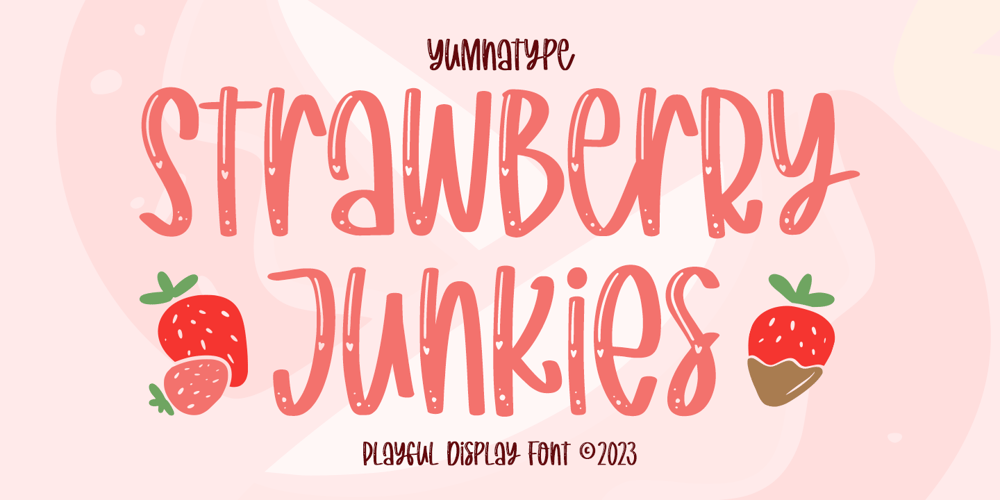
Strawberry Junkies Font Family was designed by Donis Miftahudin and published by Yumna Type. Strawberry Junkies contains 2 styles and family package options. Choosing the right display font can make your designs look more attractive and stunning, so that your designs gain more popularity. This is the Strawberry Junkies for you. It is a rather circled display font of which prone circled letters express soft, fun nuances in order that the company becomes more easily recognized by customers and audience. This font’s main characters are the consistent geometry, proportion, and line thickness on every letter to make it legible for big text sizes. In addition, Strawberry Junkies provides an extra clipart as a special bonus. Furthermore, you can enjoy the available features here.Features: Multilingual Supports PUA Encoded Numerals and Punctuations Strawberry Junkies fits best for various design projects, such as brandings, posters, banners, headings, magazine covers, quotes, printed products, merchandise, social media, etc. Find out more ways to use this font by taking a look at the font preview.Thanks for purchasing our fonts. Hopefully, you have a great time using our font. Feel free to contact us anytime for further information or when you have trouble with the font. Thanks a lot and happy designing.